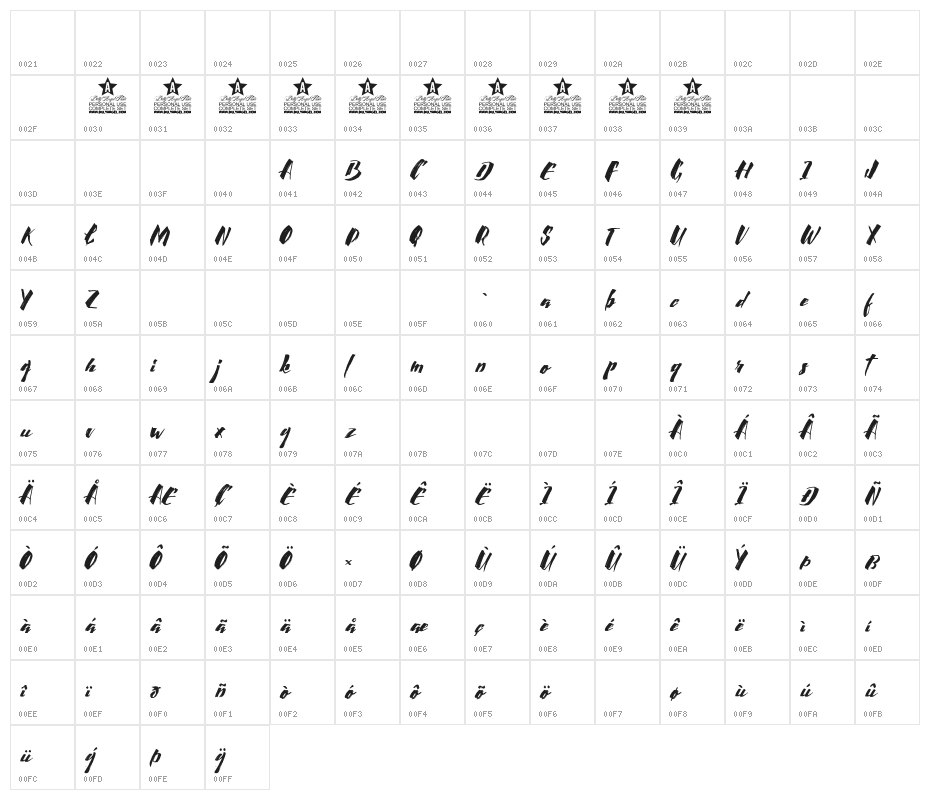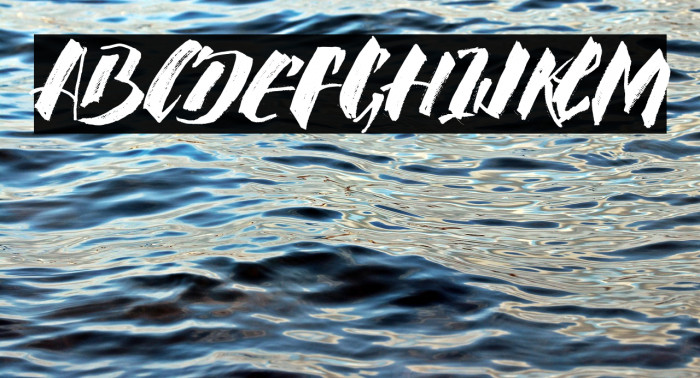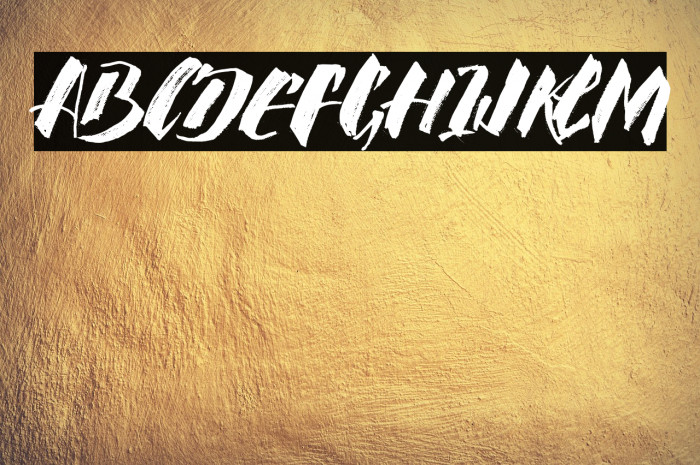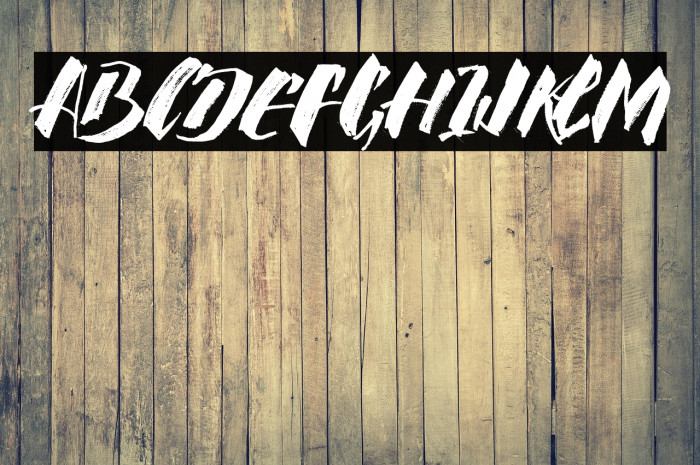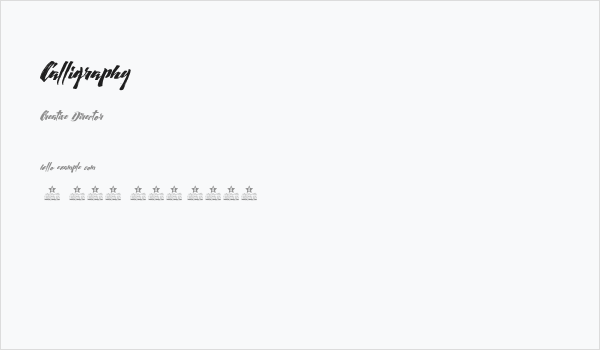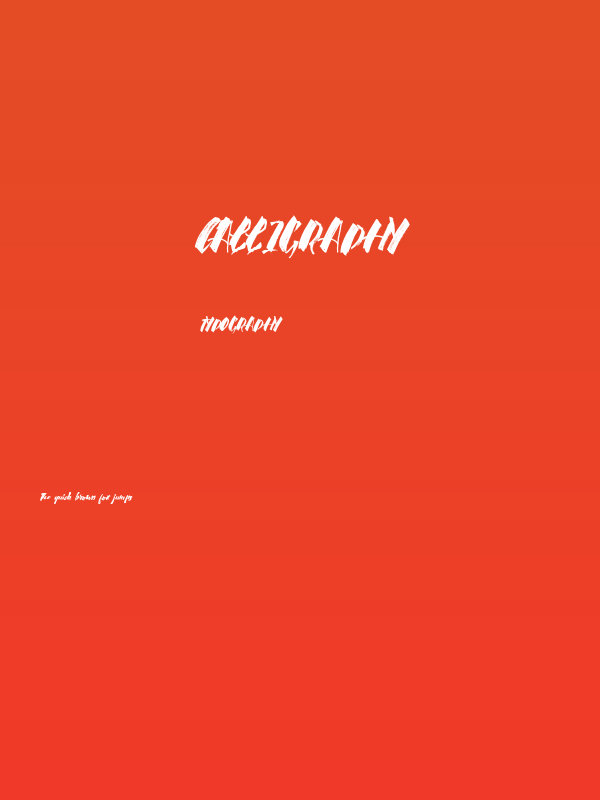
Calligraphy Font
Calligraphy Description
This font exhibits a bold and dynamic calligraphic style, characterized by its thick, brush-like strokes and expressive, flowing forms. The uppercase letters are particularly striking, with sharp angles and dramatic curves that convey a sense of movement and energy. The lowercase letters maintain this fluidity, offering a harmonious blend of elegance and boldness. The overall appearance is both artistic and impactful, making it ideal for creative and expressive design projects. The font's unique style is further enhanced by its high contrast in stroke thickness, which adds to its visual appeal.
Proposed ProjectsIdeal for artistic projects, branding, posters, and invitations where a bold, expressive style is desired.